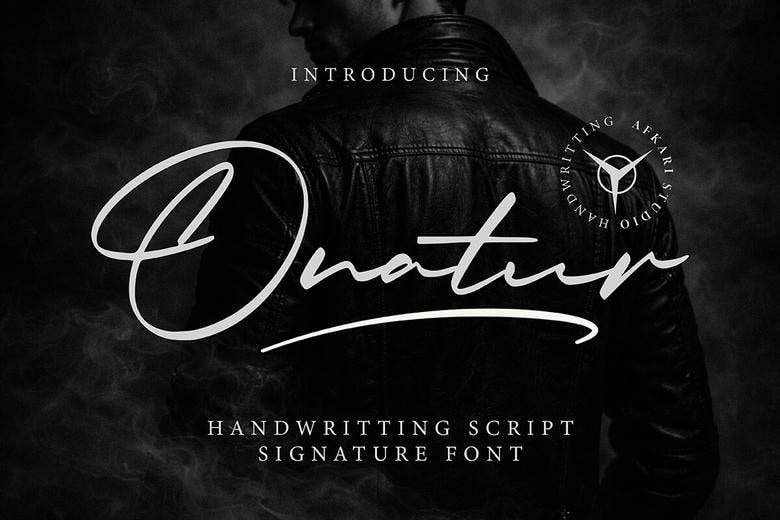
Onatur Font
Onatur is a contemporary handwritten signature script typeface designed to produce beautiful, natural and stylish typography. This font is inspired by the real handwriting, which provides the smooth strokes and flowing letterforms that can be used to add a personal and professional touch to any design.
Onatur is perfect in branding and signature-style layouts, and it is readable and has a graceful handwritten movement, which makes it suitable in both digital and print projects. This font adds a warm and sophisticated handwritten touch to designs whether it is used in logos, packaging, social media, or personal branding. Onatur is perfect to the designer who wants a clean, stylish, and versatile signature script font.
Onatur Handwritten Script Font